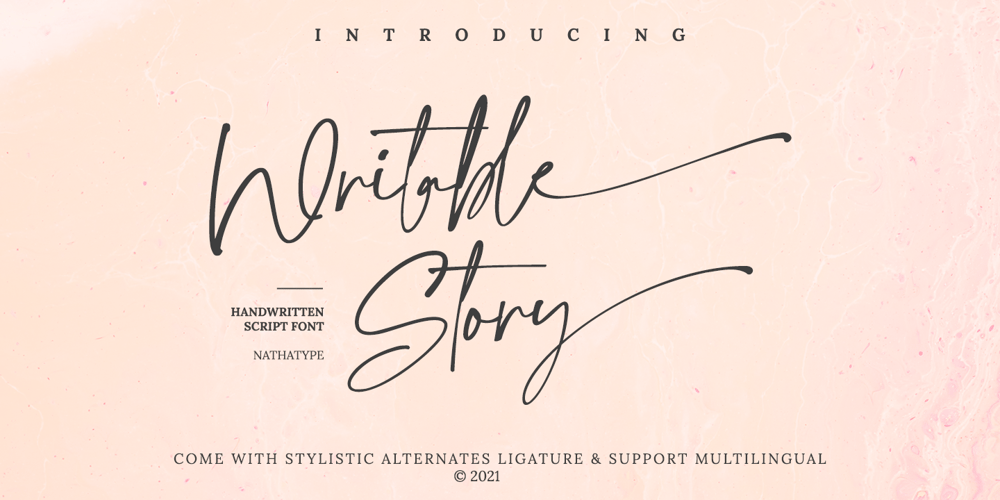
Writable Story Font Family was designed by Donis Miftahudin and published by Din Studio. Writable Story contains 1 styles and family package options. Have you ever dreamed of belonging to an eye-catching design happily enjoyed by customers? Well, it is time to make your dream come true.Writable Story is a modern, handmade, aesthetic calligraphy font to fascinate your customers and increase your brandings. It is more than just a handwriting because each stroke expresses luxury and beauty. In addition to being visually esthetic, Writable Story is arranged to be eligible either in its bigger-sized or smaller-sized texts.Features: Ligatures Stylistic Set PUA Encoded Numerals and Punctuation Use Writable Story for various designs, such as posters, banners, logos, book covers, headings, printed products, merchandise, social media, and more. Find out more ways to use this font by taking a look at the font preview. Enjoy your experience with this font and feel free to contact us for further product information or trouble complaints. Thank you and wish you good luck with your designs.